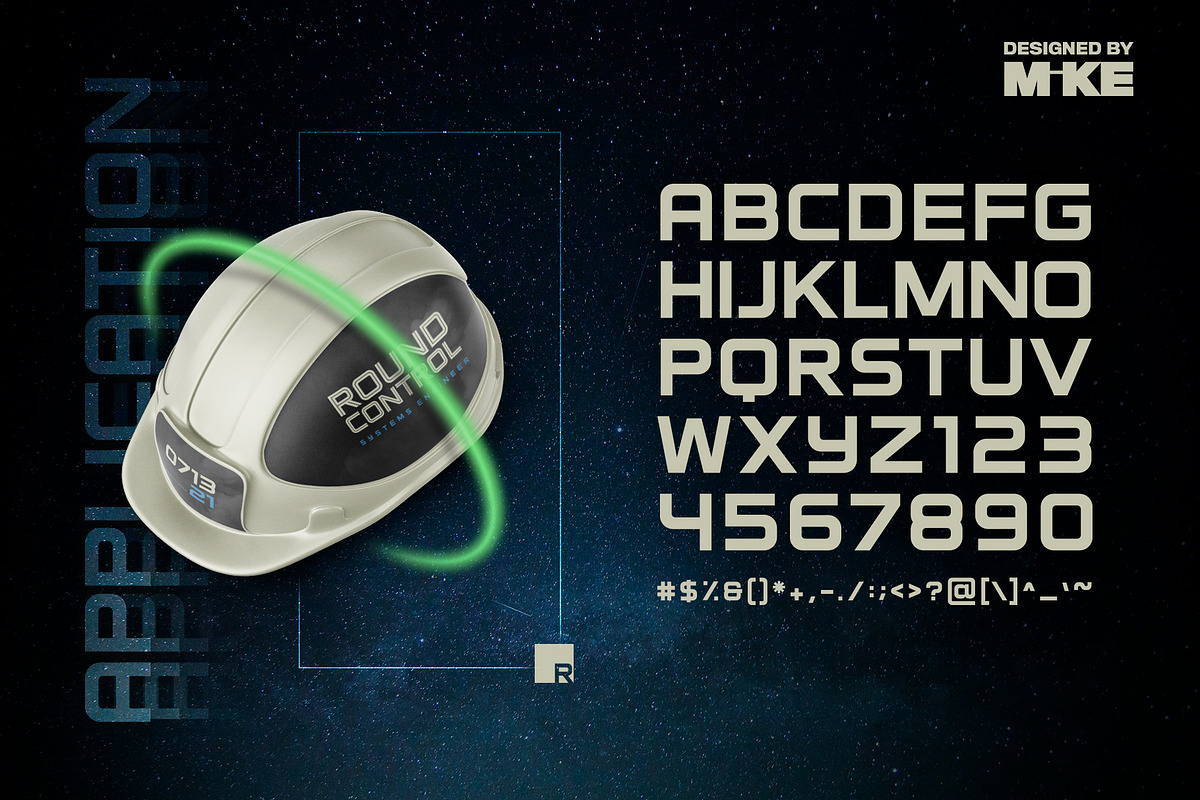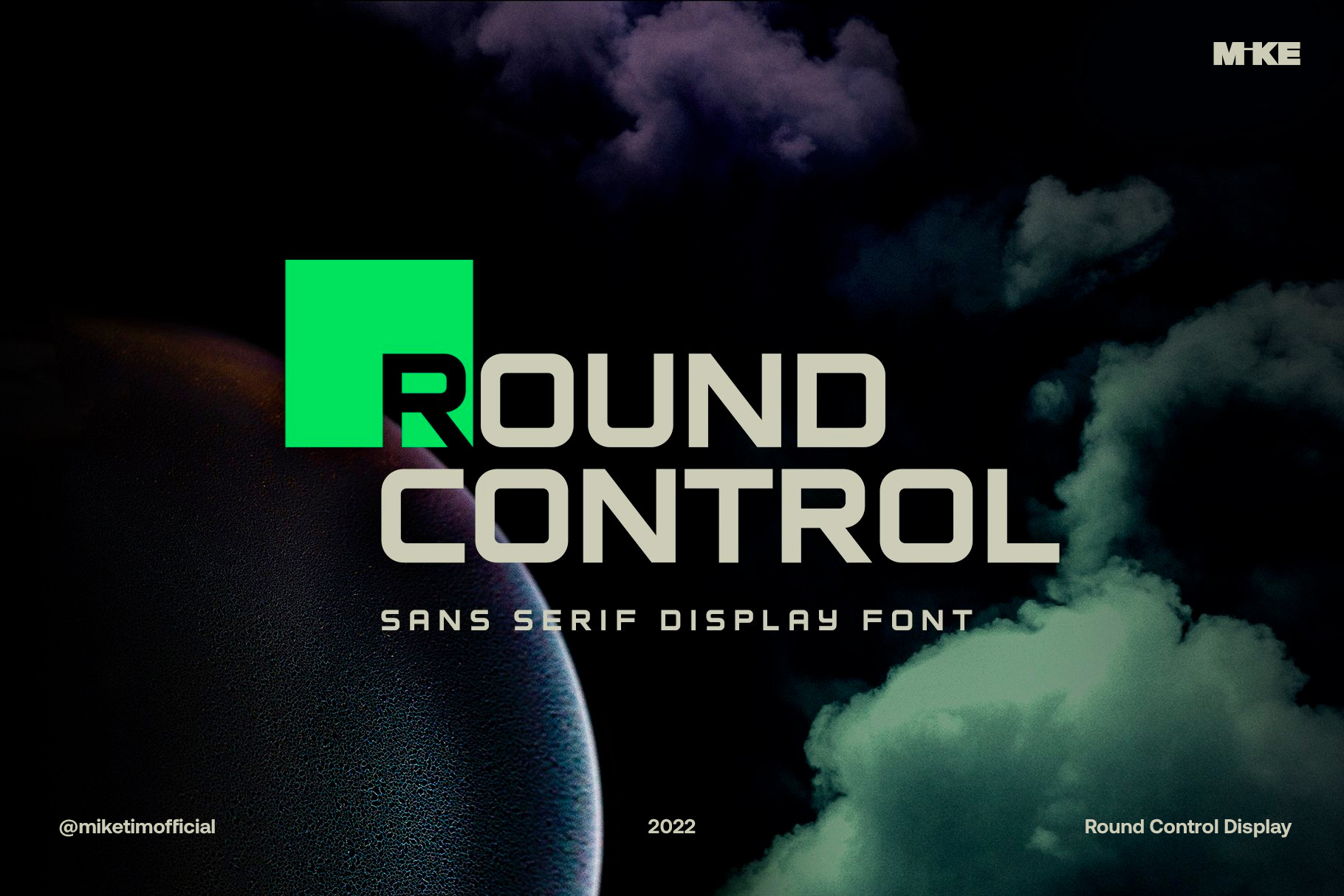
Round Control Display Typeface
Round Control is a display font inspired by both the automotive and aerospace industries, but is also intentionally designed with a simplicity that allows it work with many other styles. The font comes in both a standard version and an inline version.